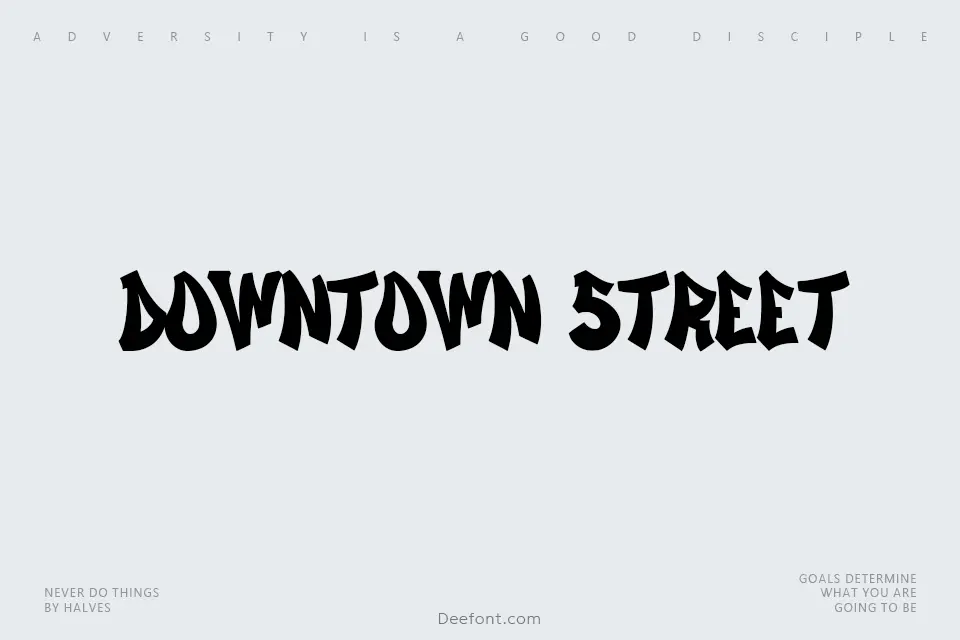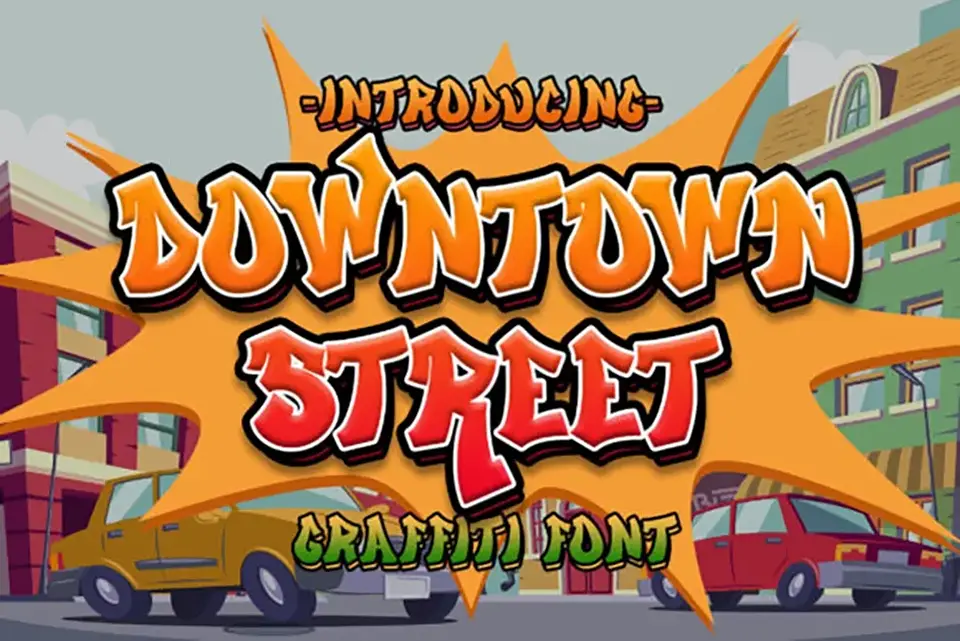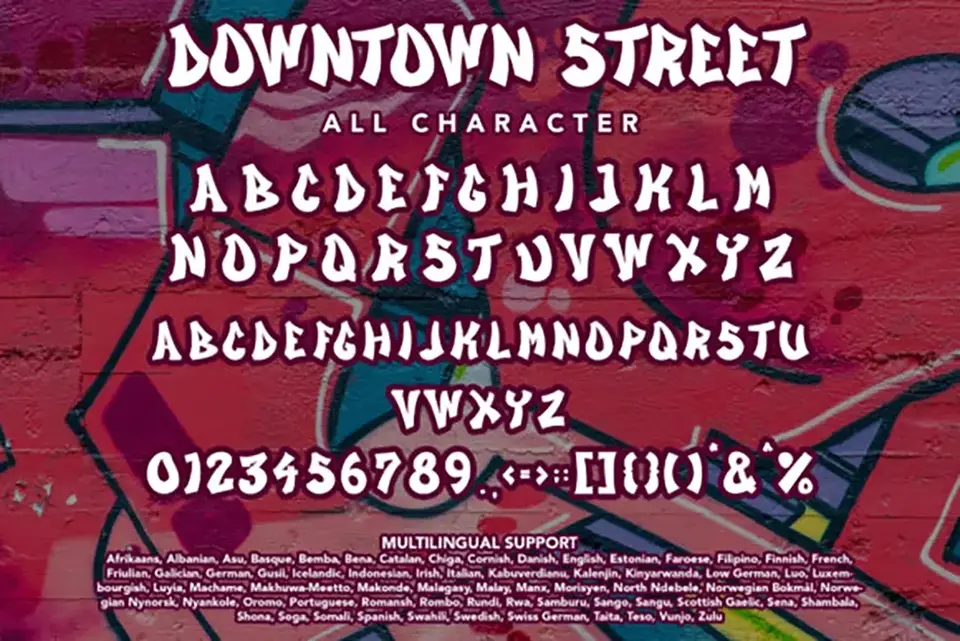
Downtown Street Font
Downtown Street is a bold and captivating graffiti-inspired display font that exudes raw urban energy and street art authenticity. Featuring dynamic letterforms with striking angular edges and flowing lines, this typeface perfectly captures the spirit of contemporary graffiti culture. Its robust and legible design makes it an excellent choice for eye-catching headlines, impactful branding, edgy editorial layouts, and packaging design projects seeking a visually striking aesthetic.